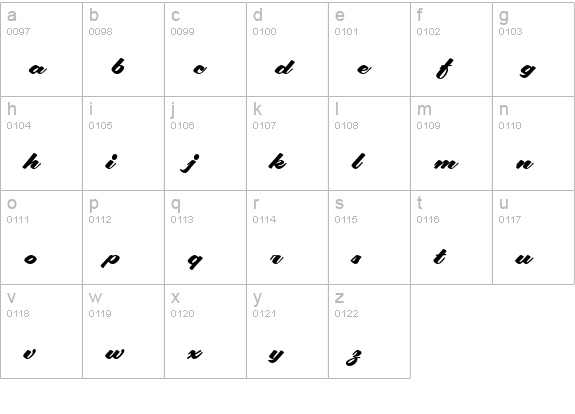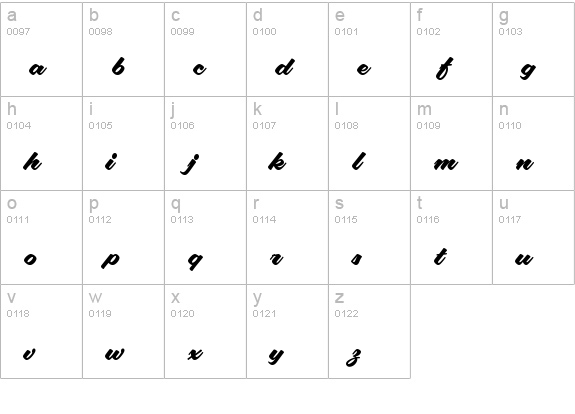
Aloha Script Casual Regular is the standard, neutral variant in the Aloha typeface family \xE2\x80\x94 well suited to general body text, paragraphs, and standard typographic work.
Aloha Script Casual Regular font is a charming and versatile typeface that exudes a sense of casual elegance. Its flowing, hand-drawn style adds a touch of whimsy to any project, making it perfect for invitations, greeting cards, branding, and more. The gentle curves and playful flourishes give this font a relaxed and friendly vibe that is sure to capture attention. Best of all, Aloha Script Casual Regular font is available for free download at FontsMarket.com. This means you can easily add this delightful font to your collection without any cost, allowing you to unleash your creativity and bring your design ideas to life with ease. Whether you're a seasoned designer or just starting out, this font is a must-have for anyone looking to infuse their projects with a touch of warmth and personality. Download Aloha Script Casual Regular font today and let your creativity soar!